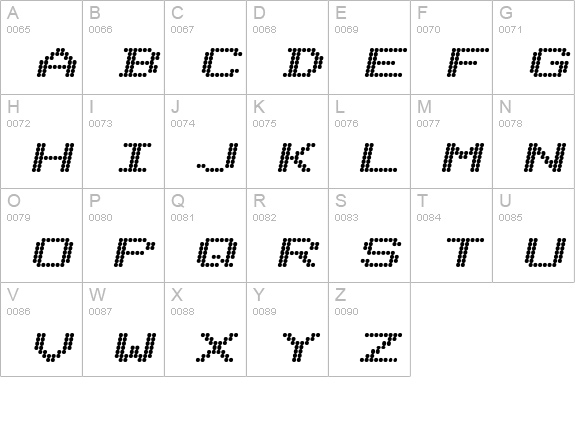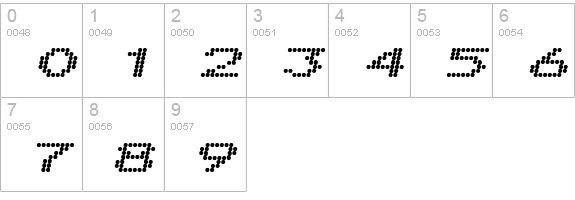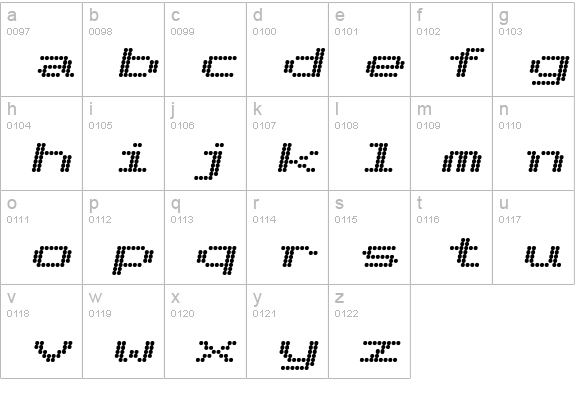
Telidon ExHv Italic is a distinctive, italic variant in the Telidon typeface family \xE2\x80\x94 well suited to design and typography projects.
Telidon ExHv Italic is a stunning font that exudes elegance and sophistication with its sleek and modern design. The italicized style adds a touch of flair and creativity, making it perfect for adding a touch of personality to any design project. The delicate curves and sharp angles of this font create a visually captivating look that is sure to impress. What sets Telidon ExHv Italic apart is not just its striking appearance, but also the fact that it is available for free. Yes, you read that right - this beautiful font can be downloaded at no cost from FontsMarket.com. Whether you are a professional designer looking to elevate your projects or someone simply looking to enhance your creative endeavors, Telidon ExHv Italic is the perfect choice. Download it today and let your creativity soar with this exquisite font.